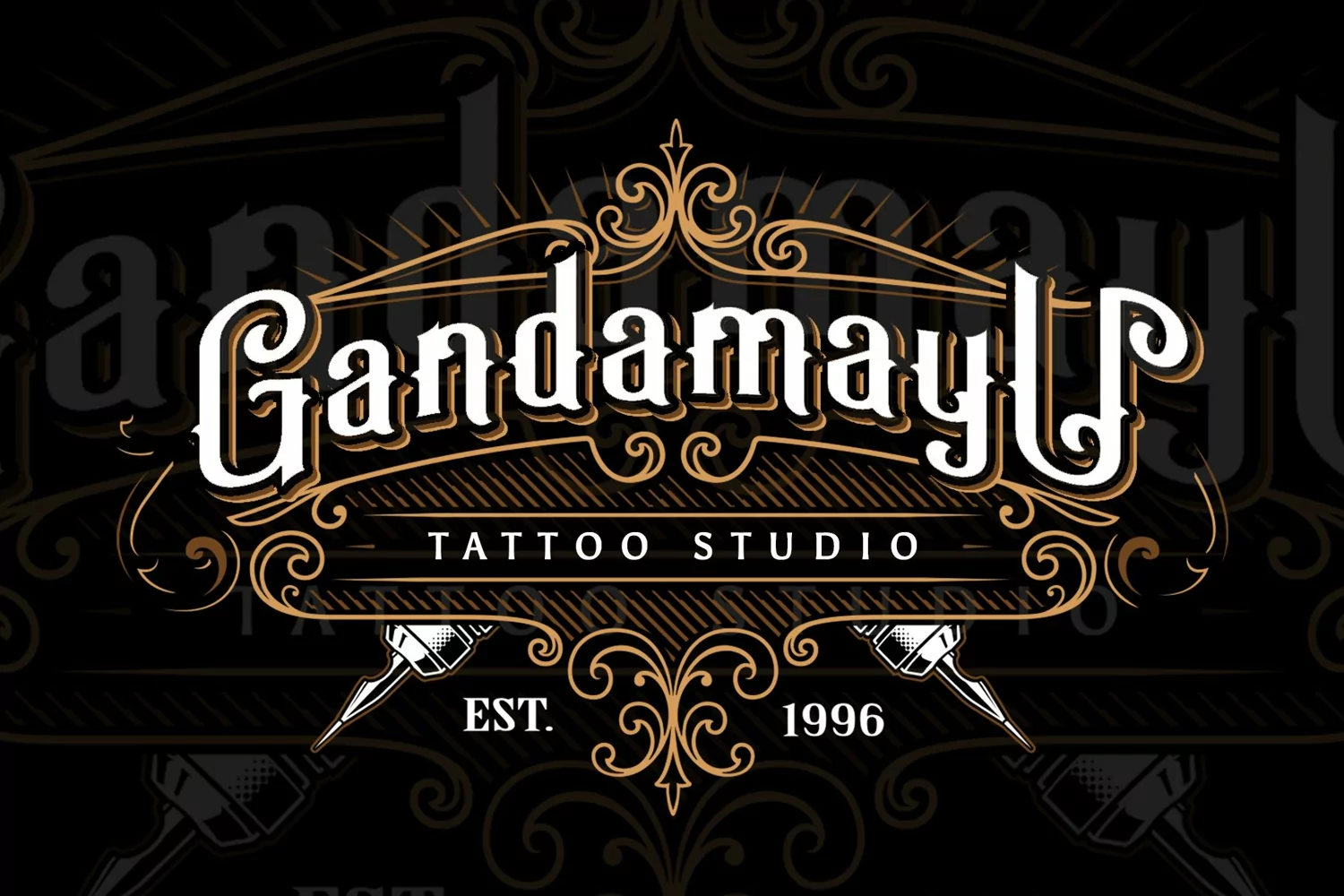
Lobasta is a vintage display typeface. Perfect for display, poster, quotes, crafting needs, florist needs, wedding needs, business card, signature, packaging, merchandise, branding, logo, logotype, header, tittle, and many more.